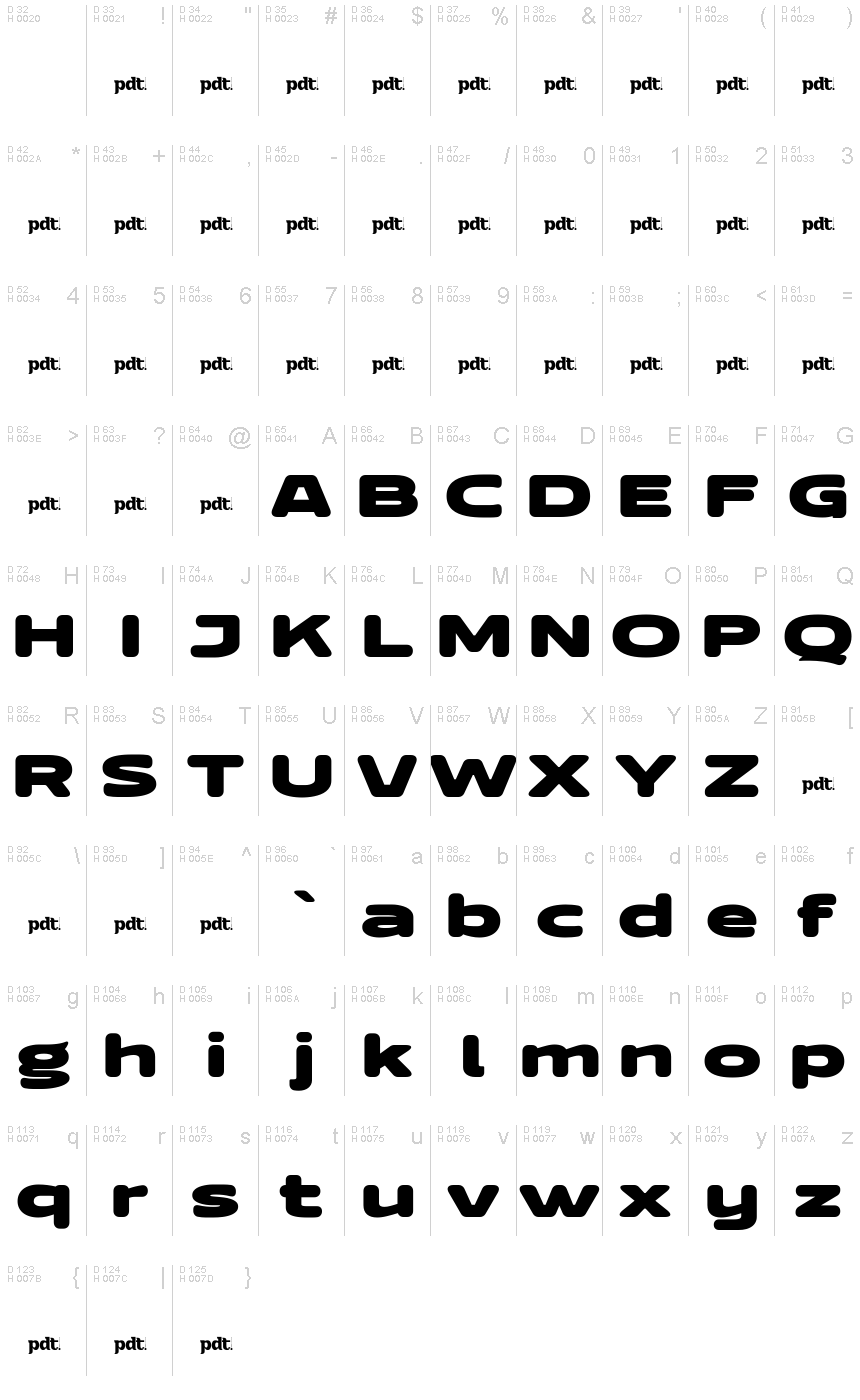
REDOB Round
Redob Round font, part of the Redob family by productype, stands out with its bold, expanded design. This round sans serif font combines a commanding presence with smooth rounded edges, making it perfect for modern branding and eye-catching headlines. Its unique style captures attention, offering a playful yet professional look that suits digital and print media alike. Ideal for creative projects and web design, this free font is available for download to elevate your visual content effortlessly.